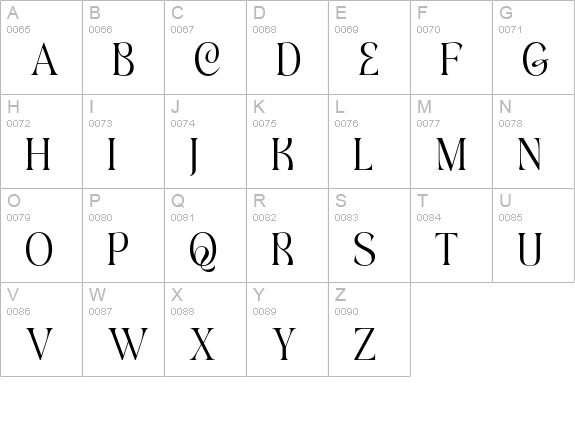
Gofar Serif Font Details
Gofar Serif is a free for personal use font in the General > Serif category, designed by Ef Studio. It has been downloaded 124 times and is available for Windows, Mac and Linux.
Gofar Serif is a timeless and elegant font that exudes sophistication and charm. With its classic serifs and graceful curves, this typeface is perfect for adding a touch of refinement to any project. Whether you're designing a wedding invitation, a logo, or a magazine spread, Gofar Serif will elevate your work to new heights.
What sets Gofar Serif apart is not just its beauty, but also its versatility. This font is equally at home in both print and digital media, making it a go-to choice for designers looking to make a statement. Its readability and legibility ensure that your message will always shine through, no matter the context.